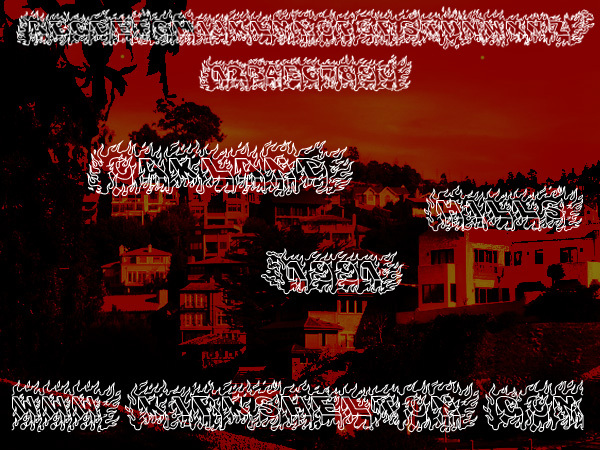
oakland hills 1991
Oakland Hills 1991 is a bold, 3D decorative display font that exudes a captivating sense of movement and energy. Designed by Kirk Shelton, this font features a striking interplay of thick, angular lines and dynamic, overlapping strokes that create a striking visual impact. Its unique aesthetic lends itself well to a variety of design applications, from attention-grabbing headlines and logos to eye-catching promotional materials.
The font's bold, dimensional quality makes it an excellent choice for projects that require a powerful, attention-grabbing visual presence, such as event posters, album covers, and brand identities.